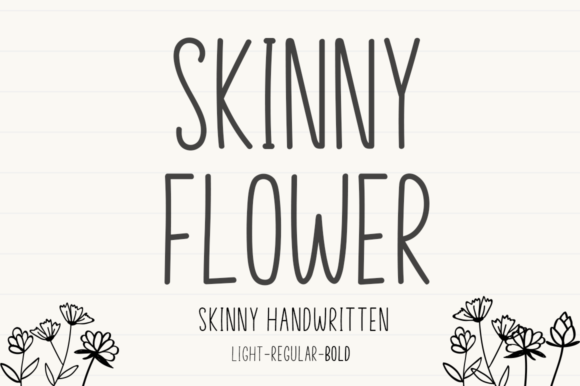
Introducing the Skinny Flower Font - the best font for selling products! Created by Manjalistudio, this script font family is perfect for adding a touch of elegance and uniqueness to your designs.
With its skinny and handwritten style, Skinny Flower Font stands out from the crowd, giving your creations a strong visual effect. Whether you're creating product labels, invitations, or social media graphics, this font will instantly elevate your designs to the next level.
Say goodbye to boring and generic fonts that fail to capture your audience's attention. Skinny Flower Font is the perfect solution for anyone who wants to create captivating and eye-catching designs that stand out from the crowd. Its unique theme and simple yet elegant style make it the perfect choice for anyone looking to create a lasting impression.